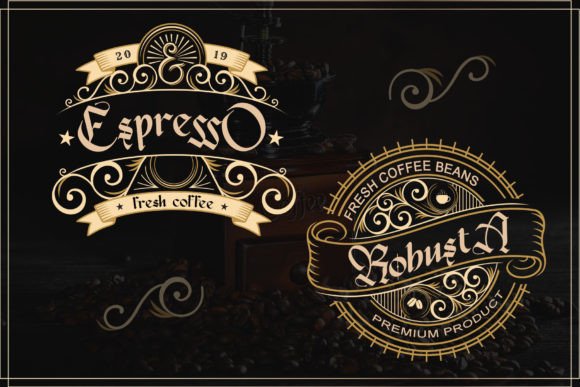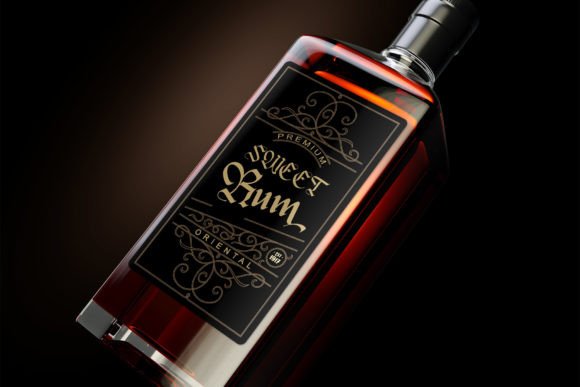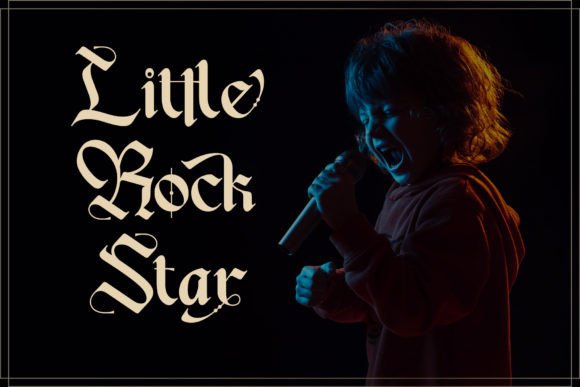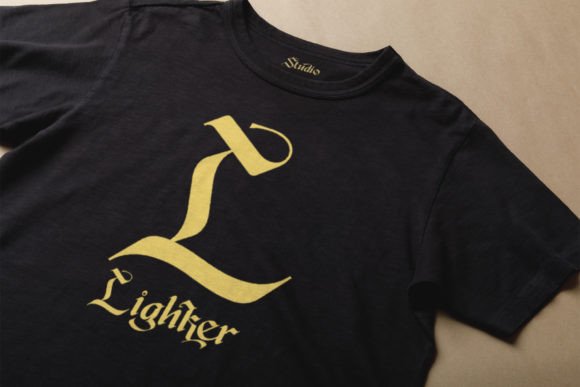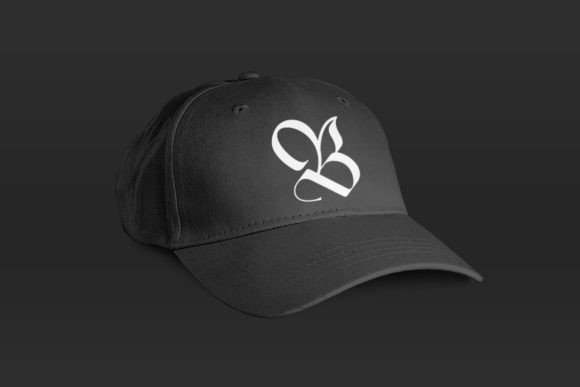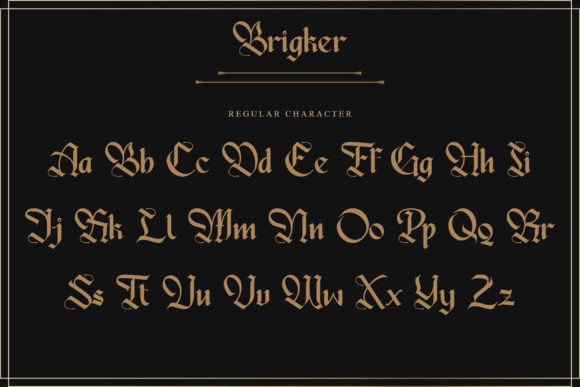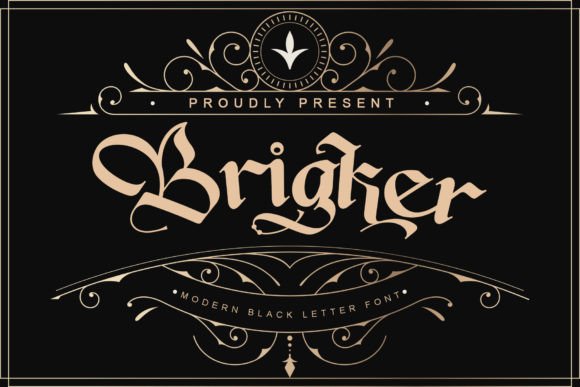
Introducing Brigker Font: A Bold and Elegant Blackletter Typeface
In the world of typography, a font can make or break a design. For crafters, designers, and artists, finding the perfect typeface can be a daunting task. However, if you’re looking for a bold, distinct, and elegant font that can add a touch of sophistication to your creations, look no further than Brigker Font. This stunning blackletter font is imposing, featuring uniquely shaped letters that will easily match a wide range of projects requiring a distinct touch.
What is Brigker Font?
Brigker Font is a blackletter typeface that boasts a bold and elegant design. Blackletter fonts, also known as Gothic scripts, are characterized by their dramatic flourishes and intricate details. Brigker Font takes this classic style and turns it up a notch, with a modern twist that makes it perfect for a variety of applications. Whether you’re working on a logo, a poster, a book cover, or a website, Brigker Font is sure to make a statement.
Key Features of Brigker Font
So, what sets Brigker Font apart from other blackletter fonts? Here are some of its key features:
- Bold and Imposing: Brigker Font is a bold and imposing typeface that demands attention. Its thick strokes and dramatic flourishes make it perfect for headlines, titles, and other applications where you want to make a statement.
- Uniquely Shaped Letters: One of the standout features of Brigker Font is its uniquely shaped letters. Each letter has been carefully crafted to create a sense of elegance and sophistication, making it perfect for designs that require a touch of refinement.
- Elegant and Refined: Despite its bold nature, Brigker Font is also incredibly elegant and refined. Its smooth lines and flowing curves make it perfect for designs that require a sense of luxury and sophistication.
- Highly Versatile: Brigker Font is an incredibly versatile typeface that can be used in a wide range of applications. Whether you’re working on a logo, a poster, a book cover, or a website, Brigker Font is sure to fit the bill.
Who is Brigker Font for?
Brigker Font is perfect for a wide range of designers, crafters, and artists, including:
- Graphic Designers: If you’re a graphic designer looking for a bold and elegant font to add to your arsenal, Brigker Font is a great choice.
- Logo Designers: Brigker Font is perfect for logo designers who want to create a bold and memorable brand identity.
- Book Cover Designers: If you’re a book cover designer looking for a font that will make your titles stand out, Brigker Font is a great option.
- Web Designers: Brigker Font can also be used in web design to create bold and elegant headings and titles.
Tips for Using Brigker Font
Here are some tips for using Brigker Font in your designs:
- Use it Sparingly: Because Brigker Font is a bold and imposing typeface, it’s best to use it sparingly. Use it for headlines and titles, and pair it with a simpler font for body text.
- Experiment with Colors: Brigker Font looks great in a variety of colors, so don’t be afraid to experiment. Try using it in different metallic colors, or pair it with a bold background for a striking effect.
- Pair it with Simple Images: Brigker Font can be paired with a wide range of images, but it looks particularly great with simple, bold graphics.
In conclusion, Brigker Font is a bold, distinct, and elegant blackletter typeface that is perfect for designers, crafters, and artists looking to add a touch of sophistication to their creations. Its uniquely shaped letters, bold strokes, and elegant design make it a versatile font that can be used in a wide range of applications. Whether you’re working on a logo, a poster, a book cover, or a website, Brigker Font is sure to make a statement.